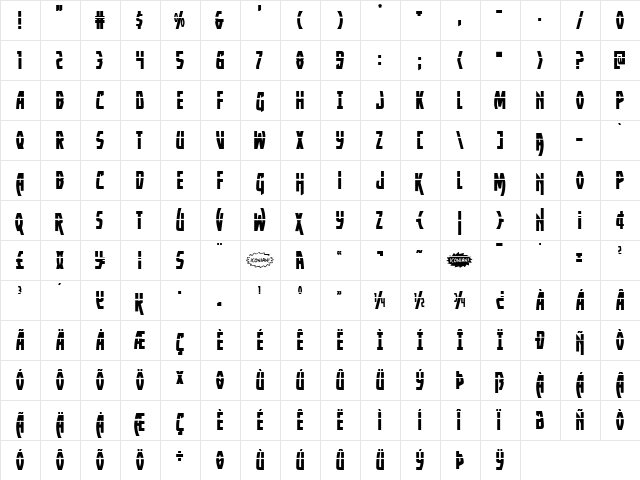
Yankee Clipper Laser Regular
Design Context for Yankee Clipper Laser Typeface
Yankee Clipper Laser is a composed and adaptable typeface that performs quietly and consistently across a wide range of design contexts.
Pro Tip: Use Yankee Clipper Laser in both headline and body roles to test its range before committing to a single application.